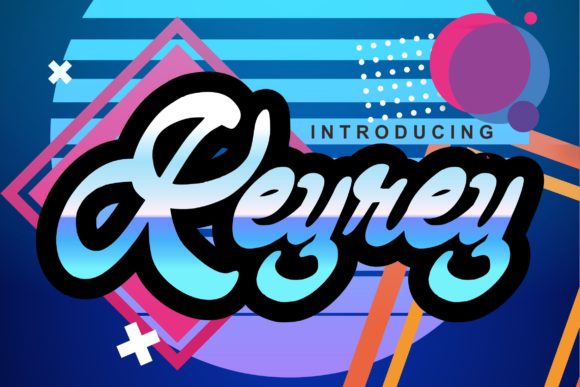
Embark on a typographic journey with Keyrey Font, a captivating script font that oozes funk and cool, leaving an indelible impression on your designs. Its bold and playful character dances across the page, evoking the spirit of the groovy era. Unleash your creativity and let your imagination soar with this extraordinary font.
Keyrey Font is a masterpiece crafted by Vunira, a font foundry renowned for its exceptional creations. With its unique and eye-catching style, this font will elevate your designs to new heights. Say goodbye to ordinary typography and embrace the funky side of design with Keyrey Font.
Dive into the world of Keyrey Font and discover a world of endless possibilities. Its bold strokes and playful curves add a touch of personality and charm to any project. Craft stunning logos, eye-catching headlines, captivating social media posts, and unique branding materials that stand out from the crowd.
Whether you're a designer, marketer, or simply a creative soul seeking to make a statement, Keyrey Font is the perfect choice for you. Its versatility knows no bounds, making it suitable for a wide range of projects. From playful invitations to bold posters, Keyrey Font will transform your words into works of art.
Don't settle for ordinary fonts that blend into the background. Embrace the extraordinary with Keyrey Font. Its bold and funky character is sure to captivate your audience, leaving them mesmerized by your creative genius. Make a statement, stand out from the crowd, and let your designs speak volumes with Keyrey Font.